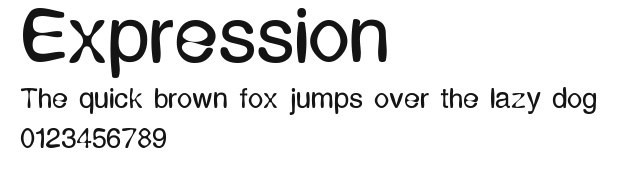
Expression Preview
• Font Name: Expression
• Full Font Name: Expression
About Expression.ttf
Expression.ttf is a modern, elegant sans-serif font designed for ultimate readability and visual harmony. Perfect for branding, headlines, web design, and print materials.